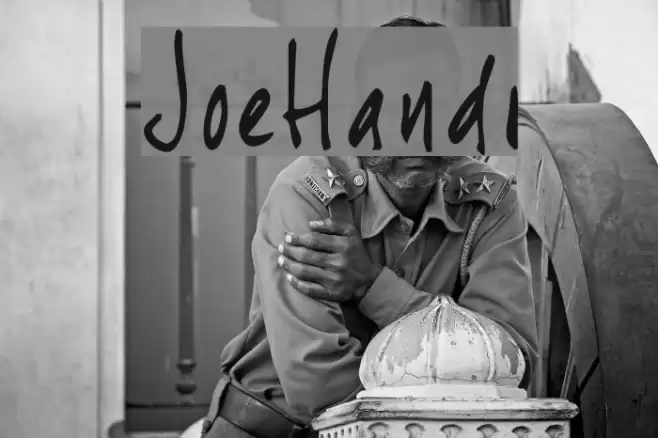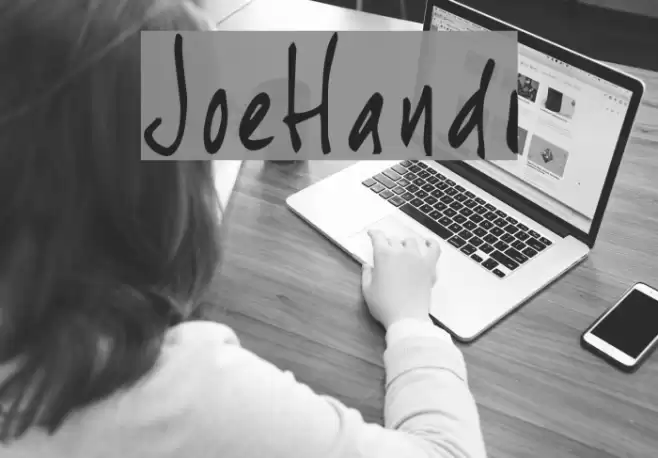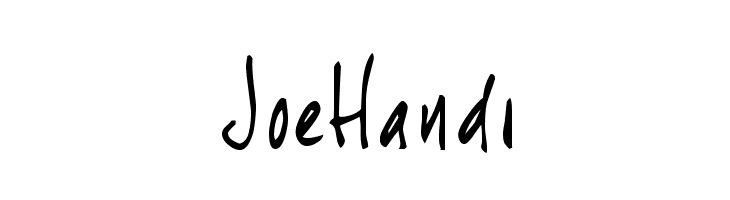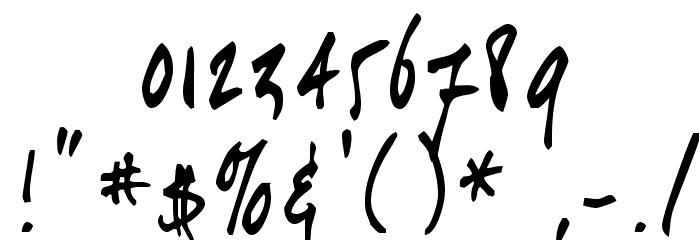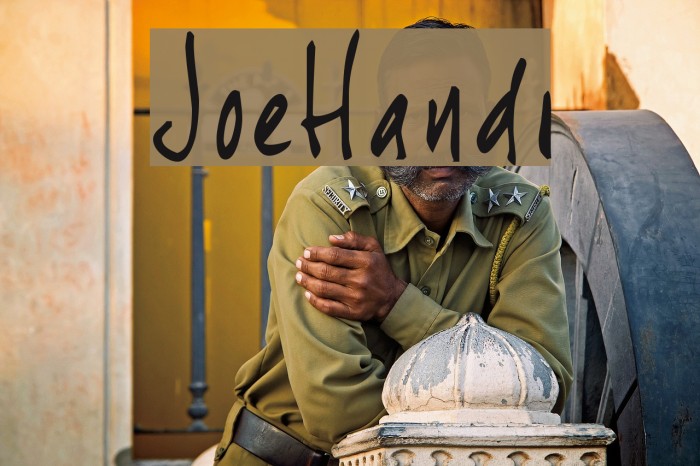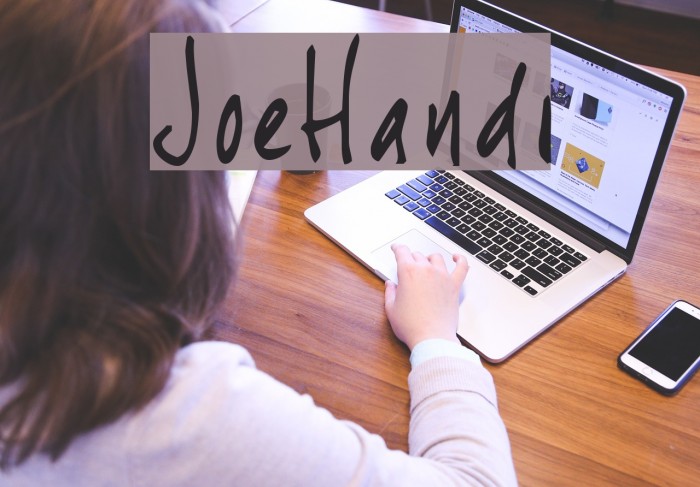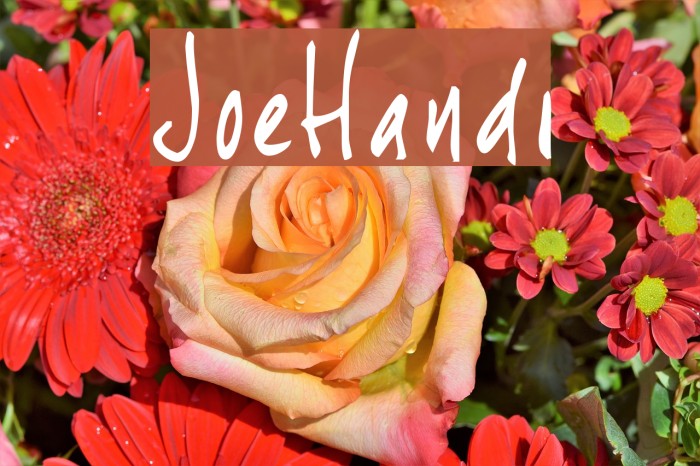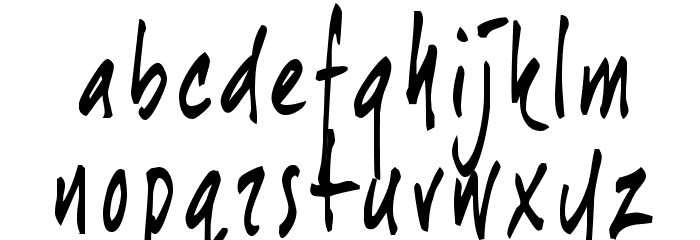
JoeHand1 Font
JoeHand1 Description
This font exhibits a casual, handwritten style with a playful and informal appearance. The letters are unevenly sized and spaced, mimicking the natural flow of handwriting. The strokes are varied in thickness, adding a dynamic and lively feel to the text. The uppercase and lowercase letters maintain a consistent style, with some characters featuring unique, quirky elements that enhance the font's personality. Numbers and special characters are included, maintaining the same handwritten aesthetic. This font is ideal for projects that require a personal touch or a creative, informal vibe.
A playful, handwritten font with varied stroke thickness and a casual, informal style from Uncategorized fonts.
- Proposed Projects: Ideal for greeting cards, invitations, personal blogs, creative posters, and any project requiring a personal, informal touch.
- Overall Style: Casual, Playful, Informal
- Use Case: Headlines, Creative projects, Personal notes